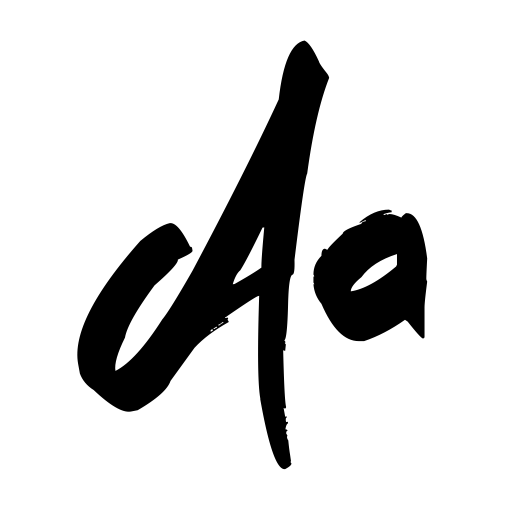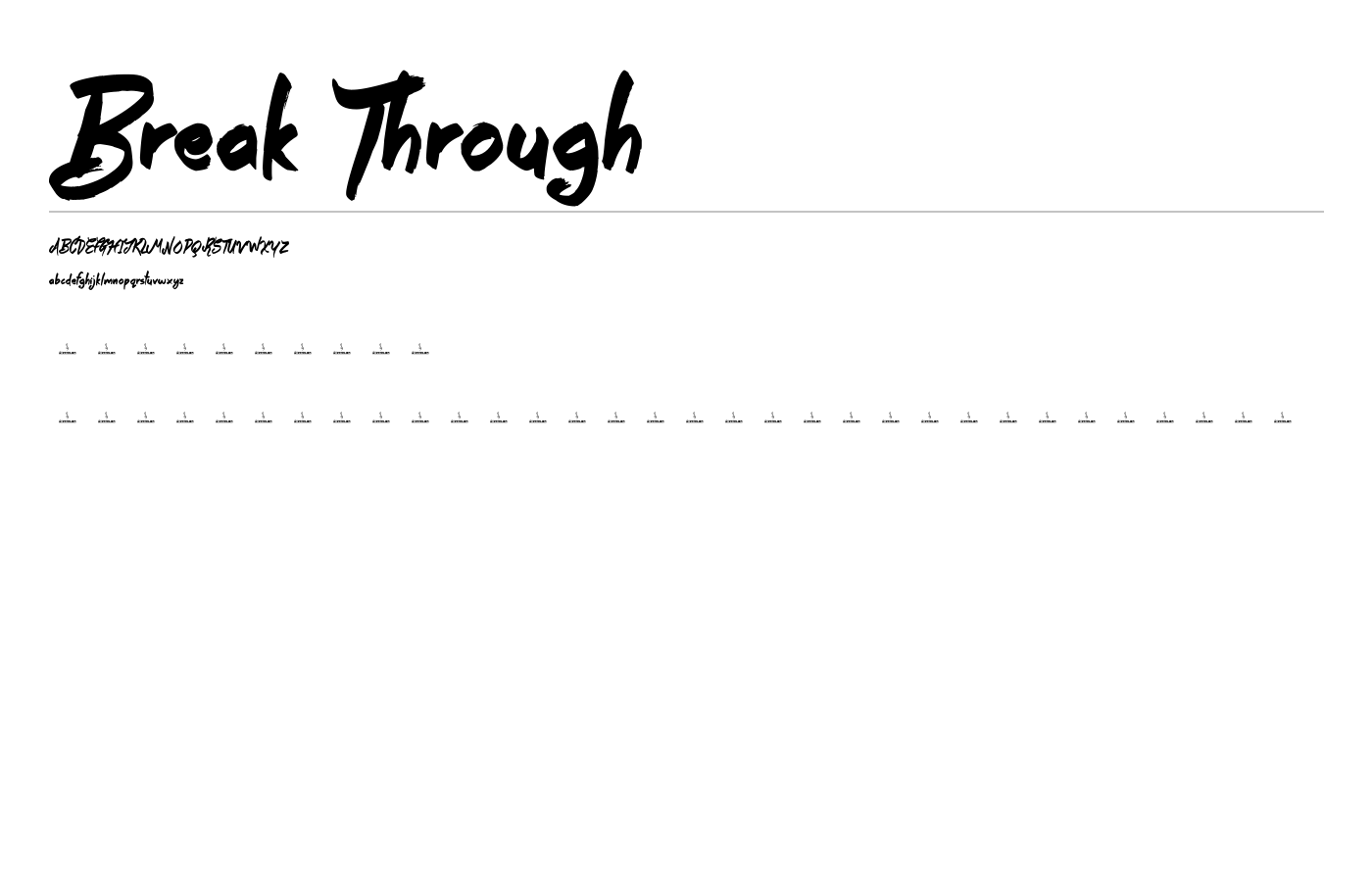
Break Through is a bold, energetic brush script font that features thick, textured strokes with a hand-painted feel. Its lively, slightly irregular letterforms convey a sense of movement and creativity, making it ideal for dynamic branding, posters, and headlines that seek to stand out with a personal, expressive touch. This font works well in projects that want to communicate energy, originality, and a handcrafted vibe.
Break Through Font
About Break Through Font
| Font family | Break Through Font |
| Designer | Jonathan S. Harris |